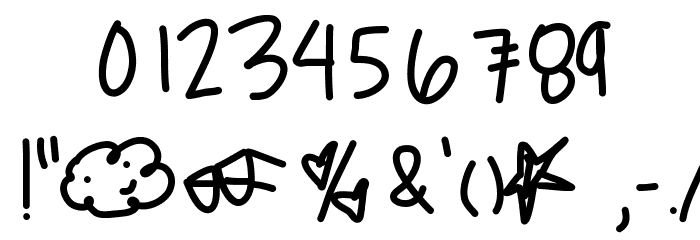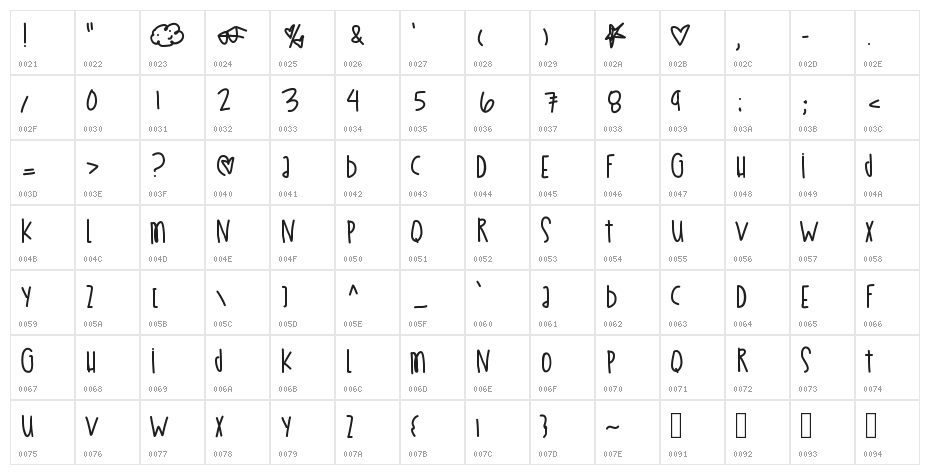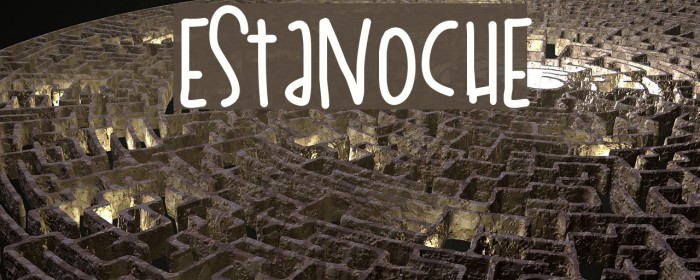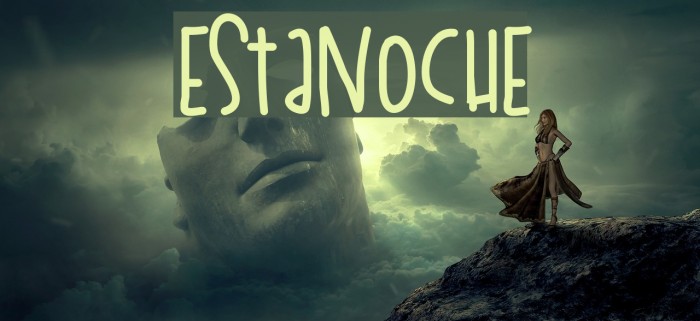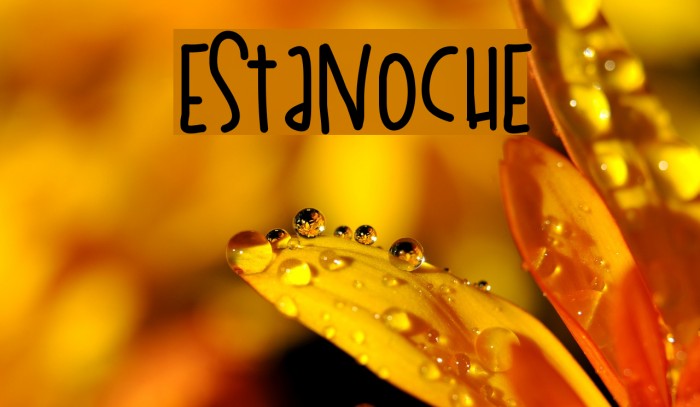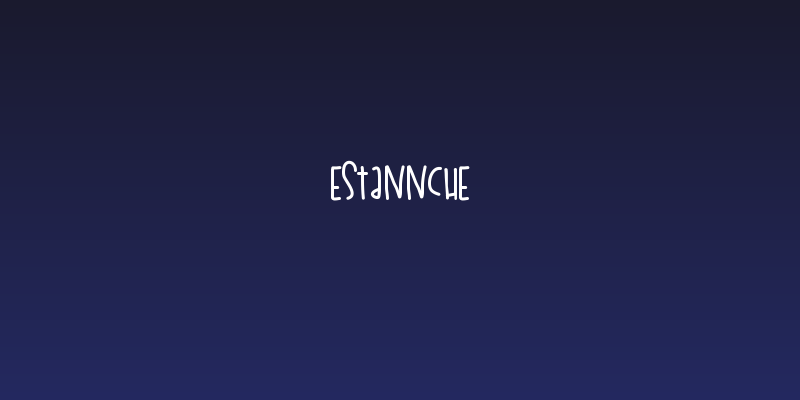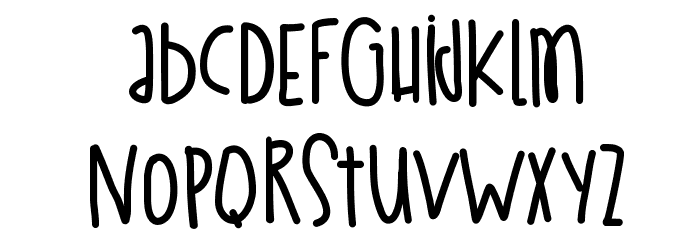
EstaNoche Font
EstaNoche Description
This font features a playful and whimsical handwritten style, characterized by its rounded and slightly irregular letterforms. The uppercase and lowercase letters maintain a consistent flow, with a casual and friendly appearance. The numbers and special characters complement the overall aesthetic, adding to its charm. The strokes are uniform in thickness, giving it a clean and approachable look. This font is perfect for projects that require a personal touch or a fun, informal vibe. Its unique style makes it stand out, while still being legible and versatile.
Overall StylePlayful
Use CaseLogos, Headlines, Informal Text
Proposed ProjectsIdeal for greeting cards, children's books, playful branding, and social media graphics.